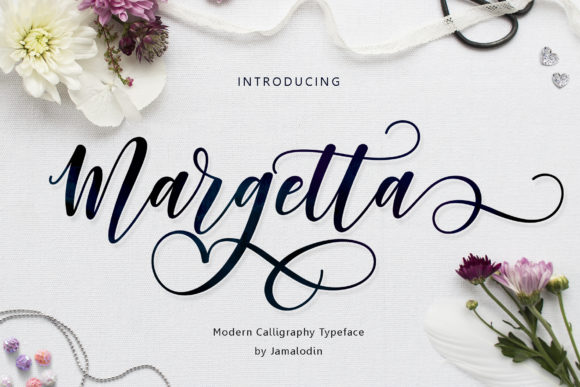
Margetta Font: Modern Elegance for Creative Projects
When it comes to typography, the right font can elevate a design from good to unforgettable. Margetta is one such font that blends modernity with elegance, offering a unique script style that feels both personal and professional. Whether you're designing an invitation, crafting a brand identity, or creating social media graphics, Margetta brings a touch of sophistication that stands out in any project.
A Closer Look at Margetta's Visual Style
Margetta is a premium handwritten font with a modern script style that mimics the natural flow of cursive writing. Its clean lines and subtle flourishes give it a refined yet approachable look. Unlike overly ornate script fonts, Margetta maintains readability without sacrificing style, making it ideal for both digital and print applications.
The font’s personality is warm and inviting, which makes it perfect for projects that require a personal touch. It has a softness to it that doesn’t feel too formal, yet it carries enough weight to be used in branding and editorial design. This balance between casual and professional is what sets Margetta apart from other script fonts on the market.
Where Margetta Shines in Design Projects
Margetta is incredibly versatile. It works well in a variety of creative contexts, including:
Its PUA encoding allows easy access to all glyphs and swashes, giving designers more flexibility when customizing text for different projects. This feature makes it easier to create unique typographic treatments without needing additional tools or plugins.
How Margetta Influences Design and Brand Perception
The choice of font can significantly impact how a brand is perceived. Margetta contributes to a sense of professionalism while maintaining warmth and approachability. Its use in branding helps establish a consistent visual identity that resonates with audiences who appreciate modern yet elegant design.
In terms of readability, Margetta strikes a good balance. While it’s a script font, its structure ensures that text remains legible even at smaller sizes. This makes it suitable for use in headers, titles, and short bursts of text rather than long paragraphs. When paired with a complementary sans serif font, Margetta can help create a strong visual hierarchy that guides the reader through the content effectively.
For marketers and content creators, using Margetta can enhance audience engagement by adding a personal and artistic touch to promotional materials. It’s especially effective in storytelling formats, such as blog headers, quotes, and editorial designs, where emotional connection is key.
Practical Tips for Using Margetta
To get the most out of Margetta, consider the following tips:
1. Evaluate Project Fit: Assess whether the font aligns with the tone and purpose of your project. Margetta works best in projects that benefit from a personal or artistic feel.
2. Test Font Pairings: Experiment with combining Margetta with other fonts to find the right balance. A common pairing is with a clean sans serif font for body text.
3. Review Included Styles: Check if the font includes multiple weights or styles, which can offer more versatility in different design scenarios.
4. Consider Readability: Use Margetta for headings and short phrases rather than large blocks of text to maintain clarity.
By considering these factors, you can ensure that Margetta enhances your design rather than detracts from it. It’s important to match the font to the project’s needs and audience expectations for the best results.
Margetta is more than just a font—it’s a design tool that can help bring creativity, personality, and professionalism to your work. Whether you're a designer, marketer, or small business owner, incorporating Margetta into your projects can add a unique dimension that sets your work apart.